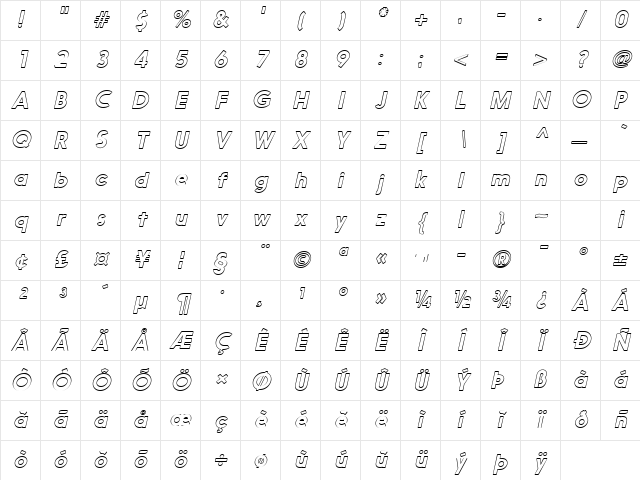
Nanami Rounded Outline Oblique
Foundry: Thinkdust
Designer: Alex Haigh
Design Context for Nanami Rounded Outline
Nanami Rounded Outline is built around its visual character rather than neutral utility - its distinctive forms are designed to make an impression at display sizes. The slanted form adds forward momentum and visual energy.
Font Pairing: Pair with a clean neutral sans-serif for body copy to let Nanami Rounded Outline's character lead without overwhelming the composition.
Pro Tip: Use Nanami Rounded Outline exclusively at display sizes - it was designed to be seen, not read at length. Let a neutral companion handle body copy.